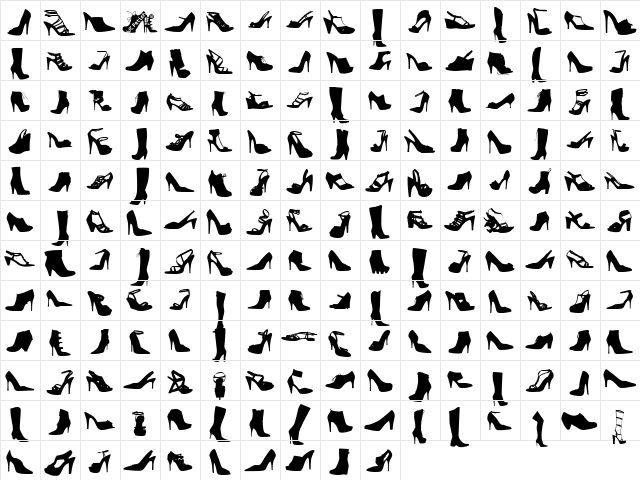
WC Fetishist Bta Regular
Design Context for WC Fetishist Bta Typeface
WC Fetishist Bta is a composed and adaptable typeface that performs quietly and consistently across a wide range of design contexts.